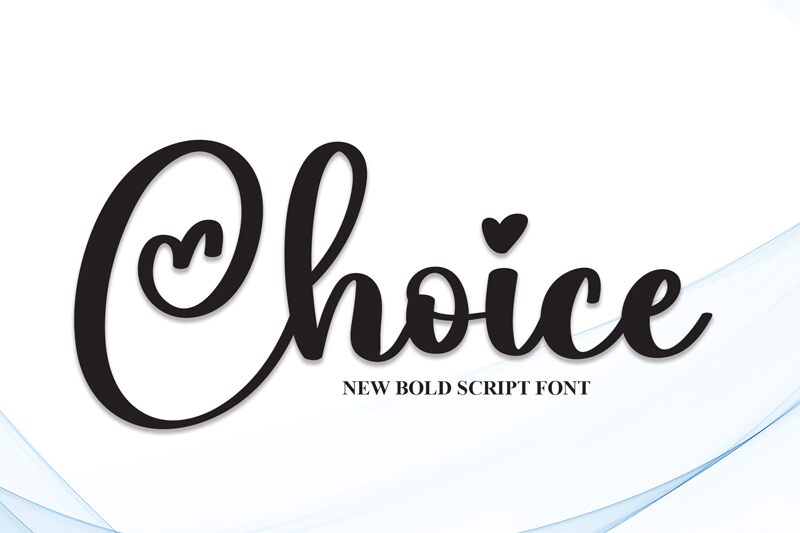
Choice
Choice, a captivating calligraphy font by Scratchones, exudes elegance and romance.
Its exquisite curves and delicate strokes make it perfect for creating enchanting wedding invitations that capture the essence of love and celebration. With its semi-light weight, Choice is also well-suited for crafting heartfelt handwritten letters or designing expressive greeting cards that convey heartfelt emotions. This versatile font brings an air of sophistication to any project, whether it's designing elegant logos for high-end boutiques or adding a touch of refinement to personalized stationery.
Choice is the ultimate font for those seeking timeless beauty in their creations.